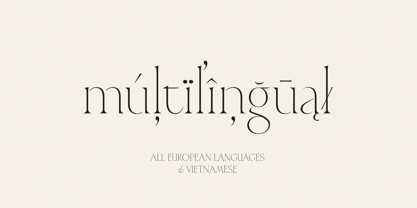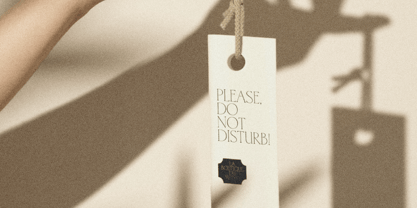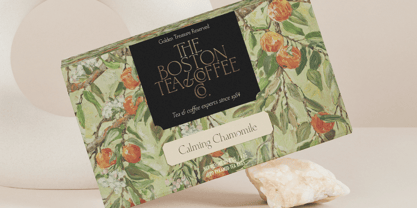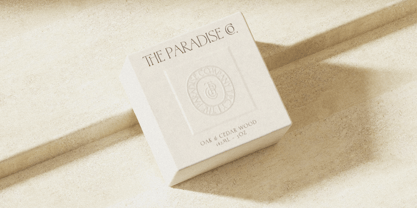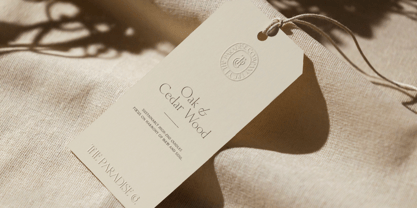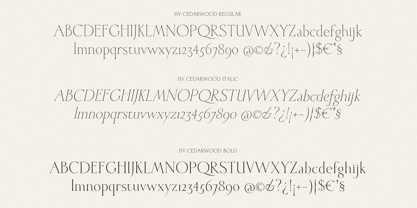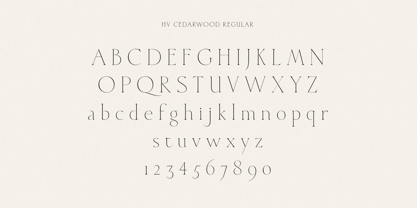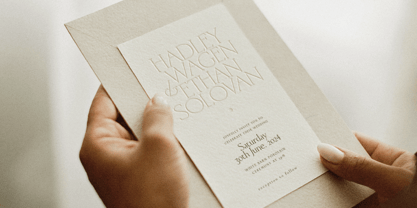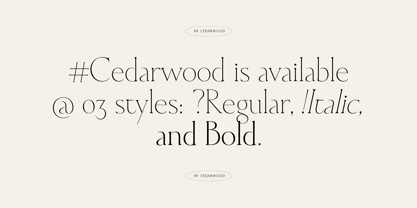
HV Cedarwood
by Harmonais Visual
The HV Cedarwood Font Family was designed by Max Duy T. and published by Harmonais Visual. HV Cedarwood contains 3 styles and family package options. More about this family
Cedarwood is a classic serif with a regal, elegant touch. Inspired by the work of the old masters, Cedarwood is perfectly suitable for creating classy yet still elegant designs such as logos, packaging, editorial, and more.
Designers: Max Duy T.
Foundry: Harmonais Visual